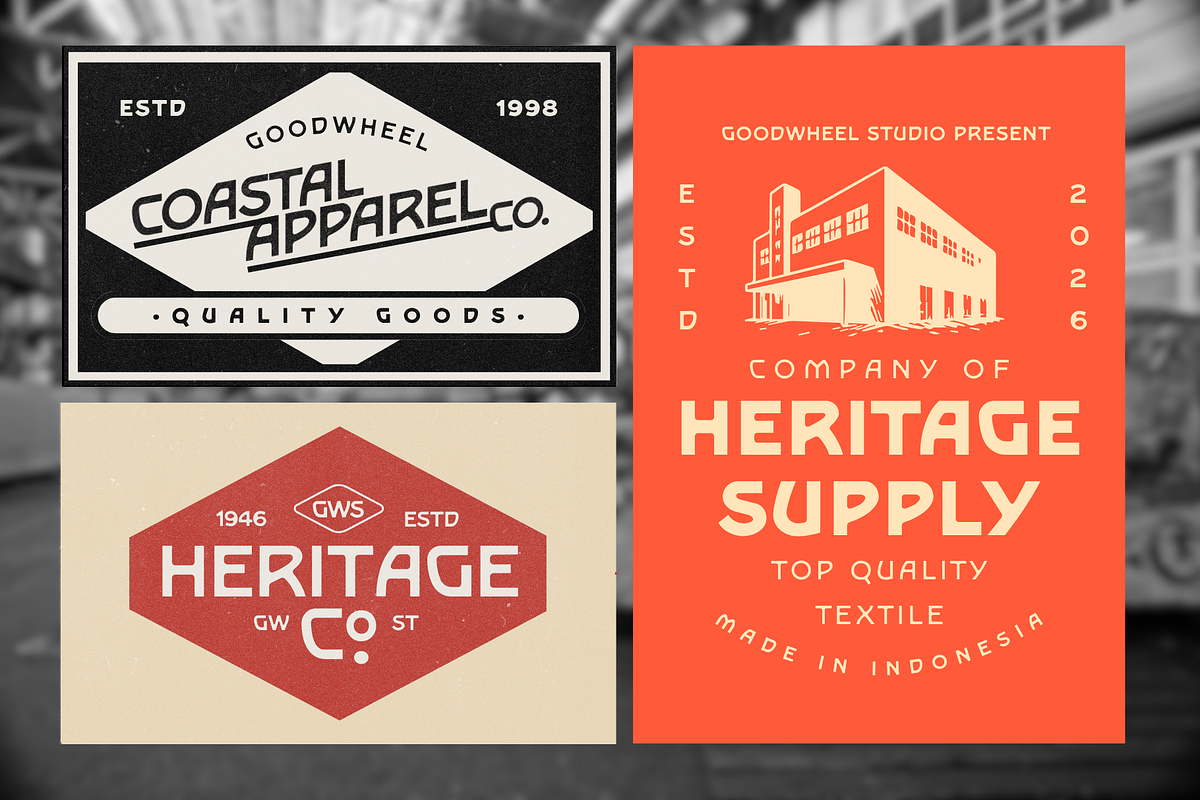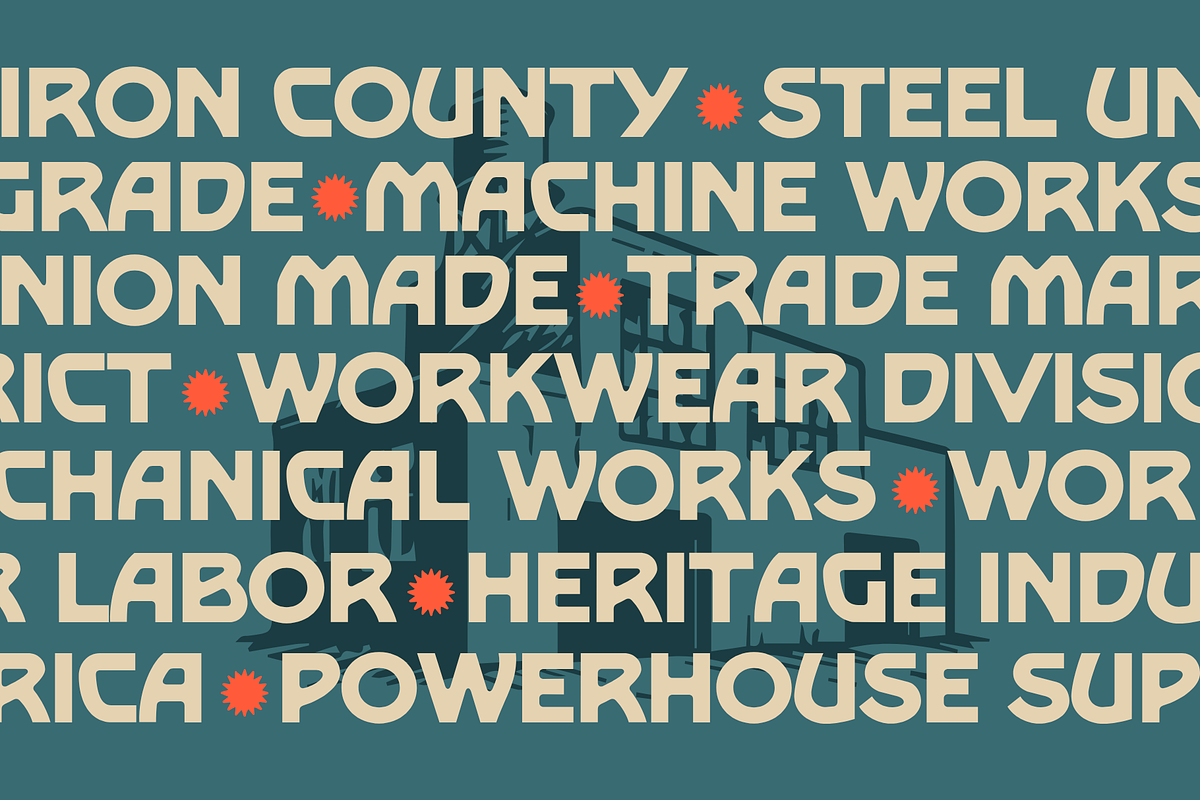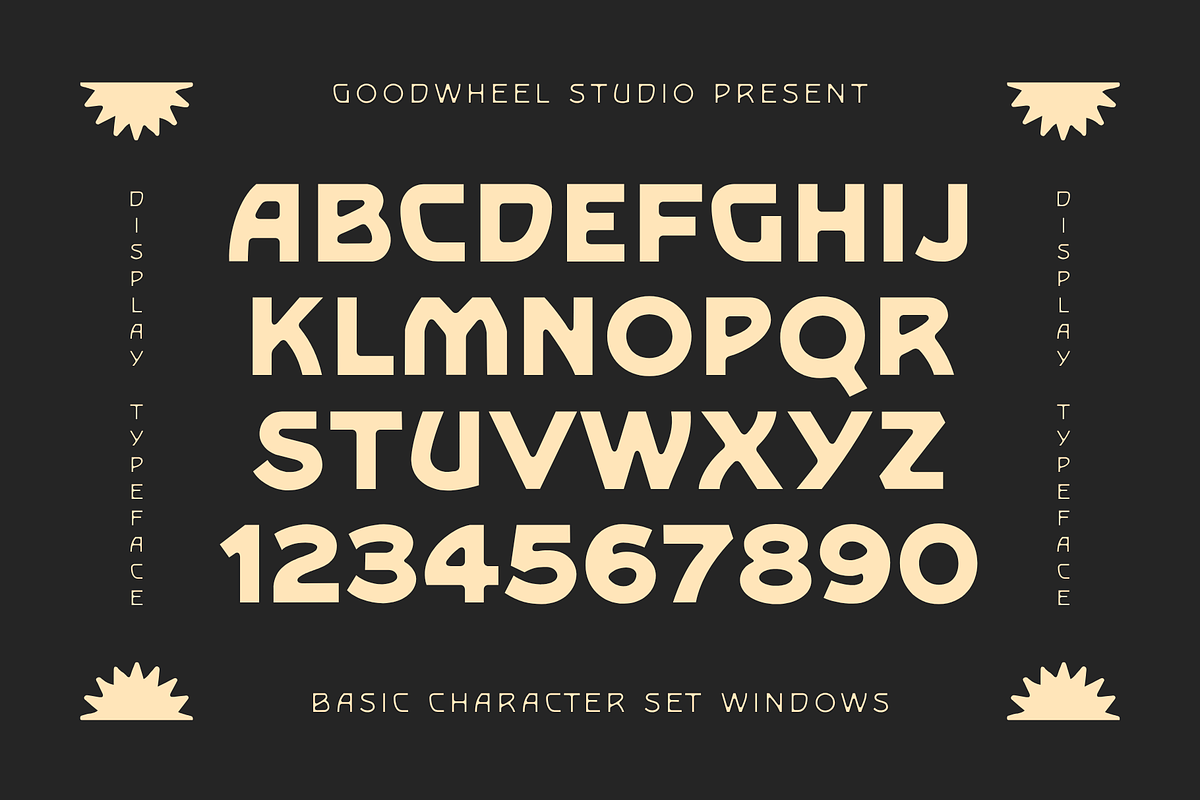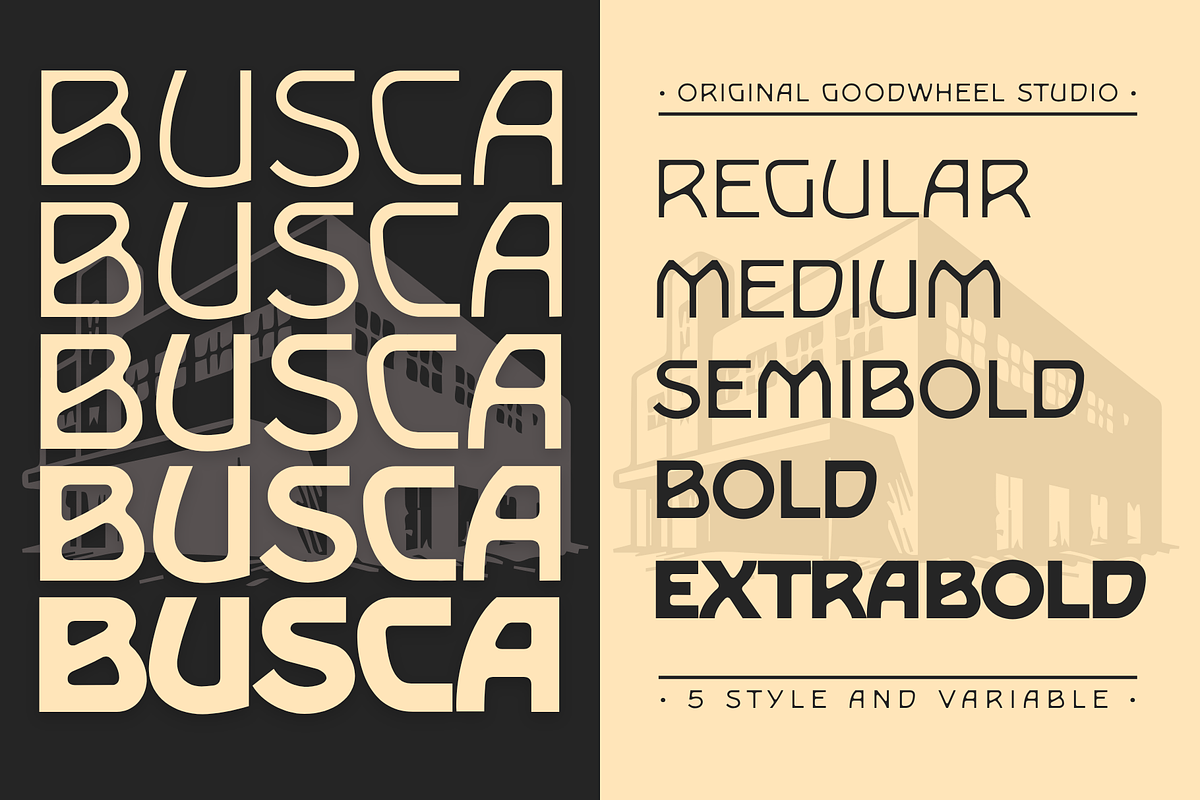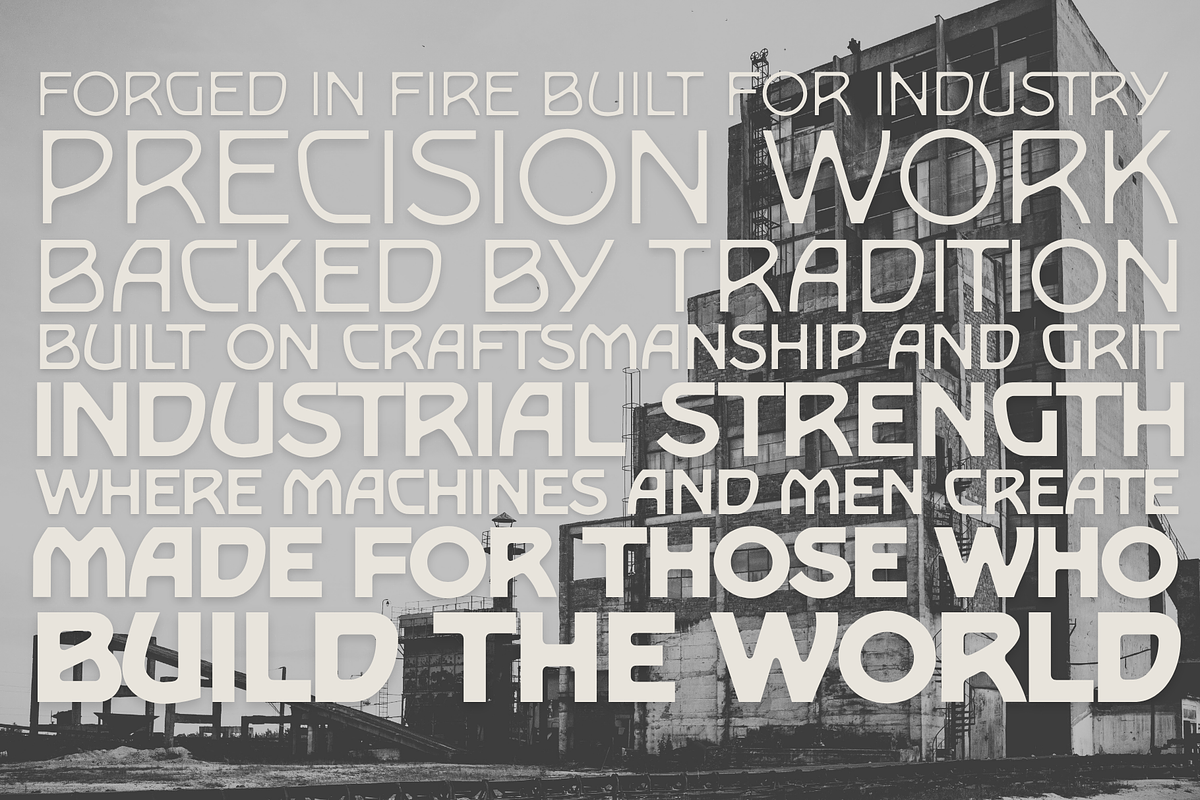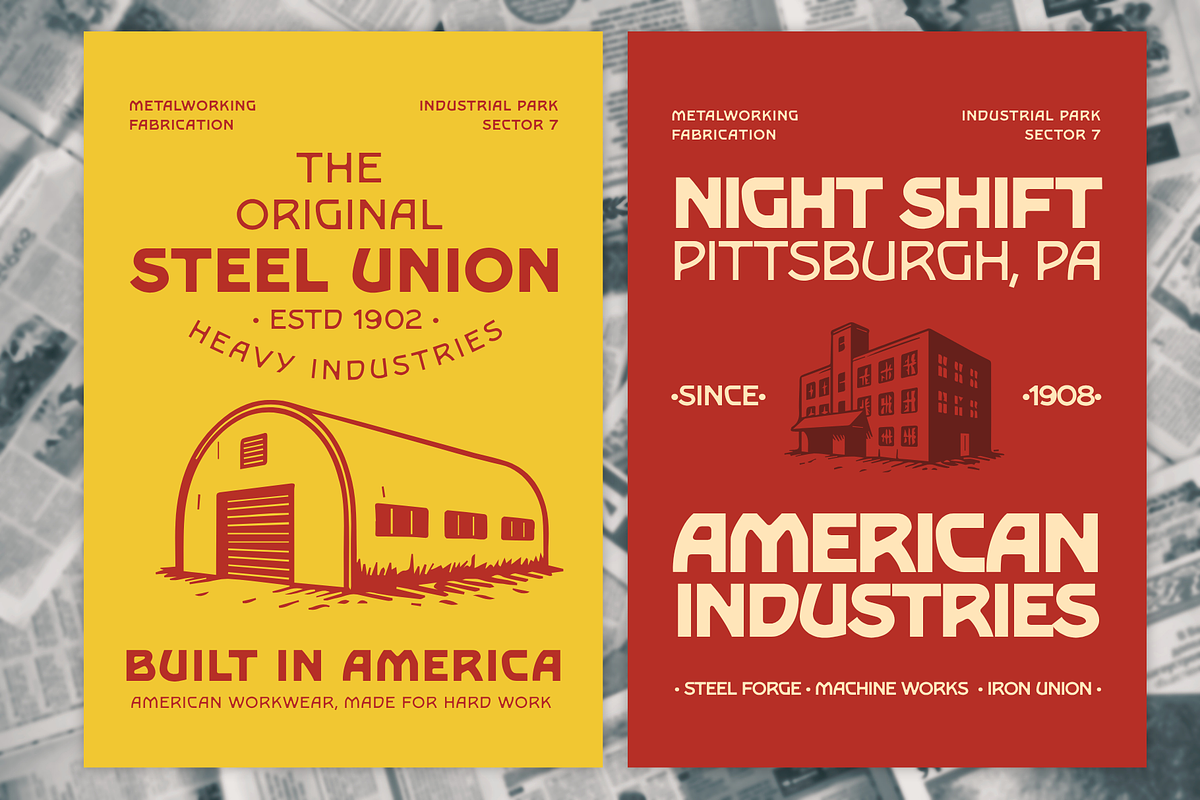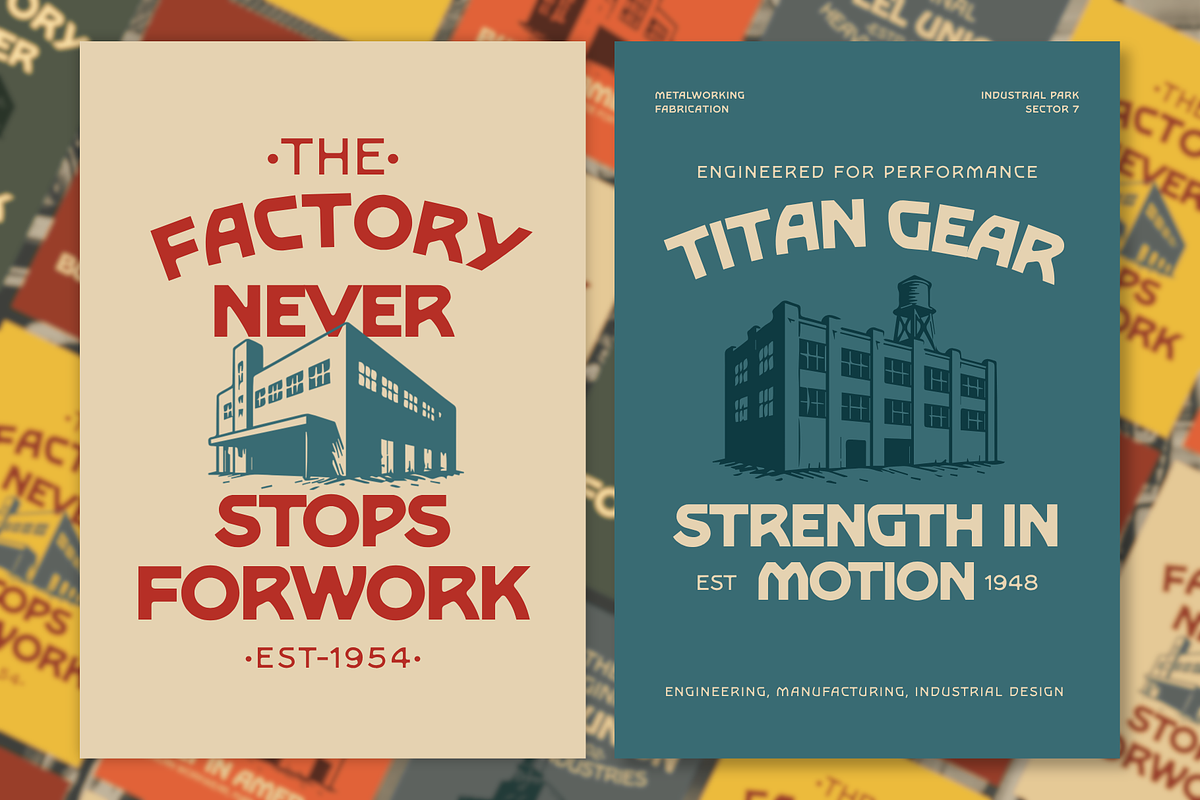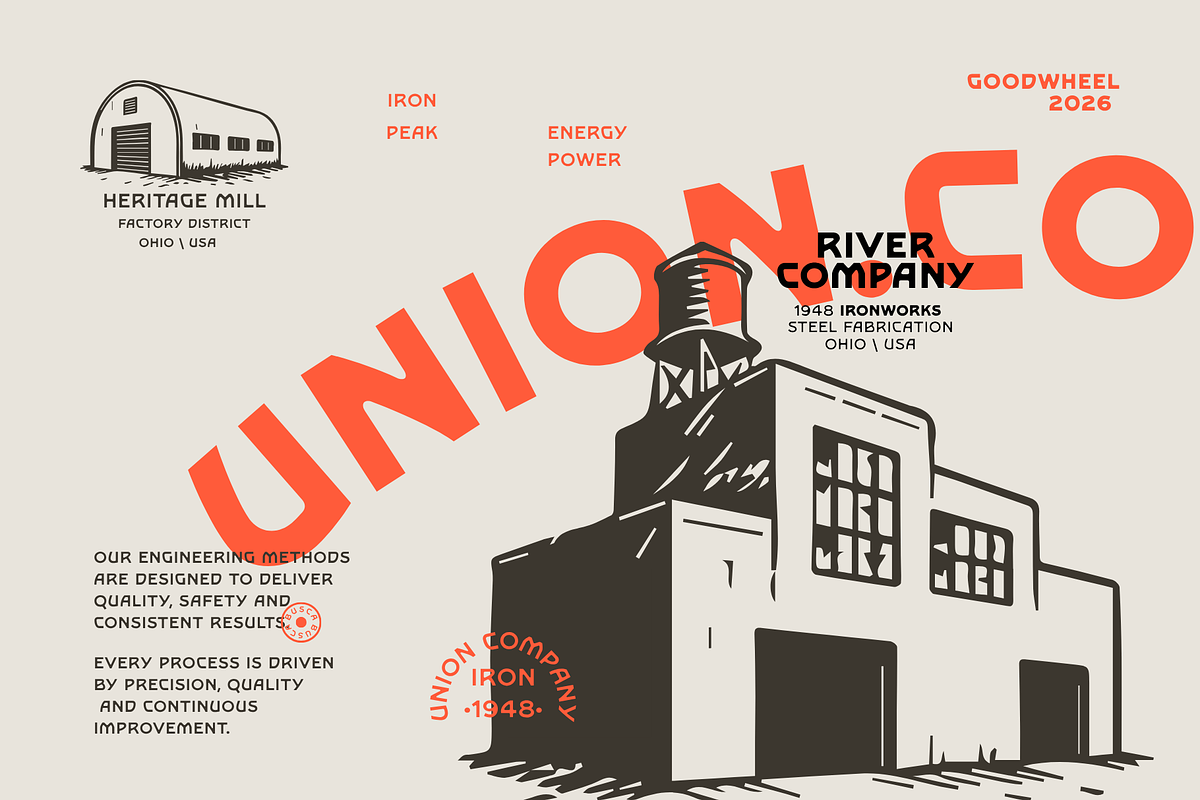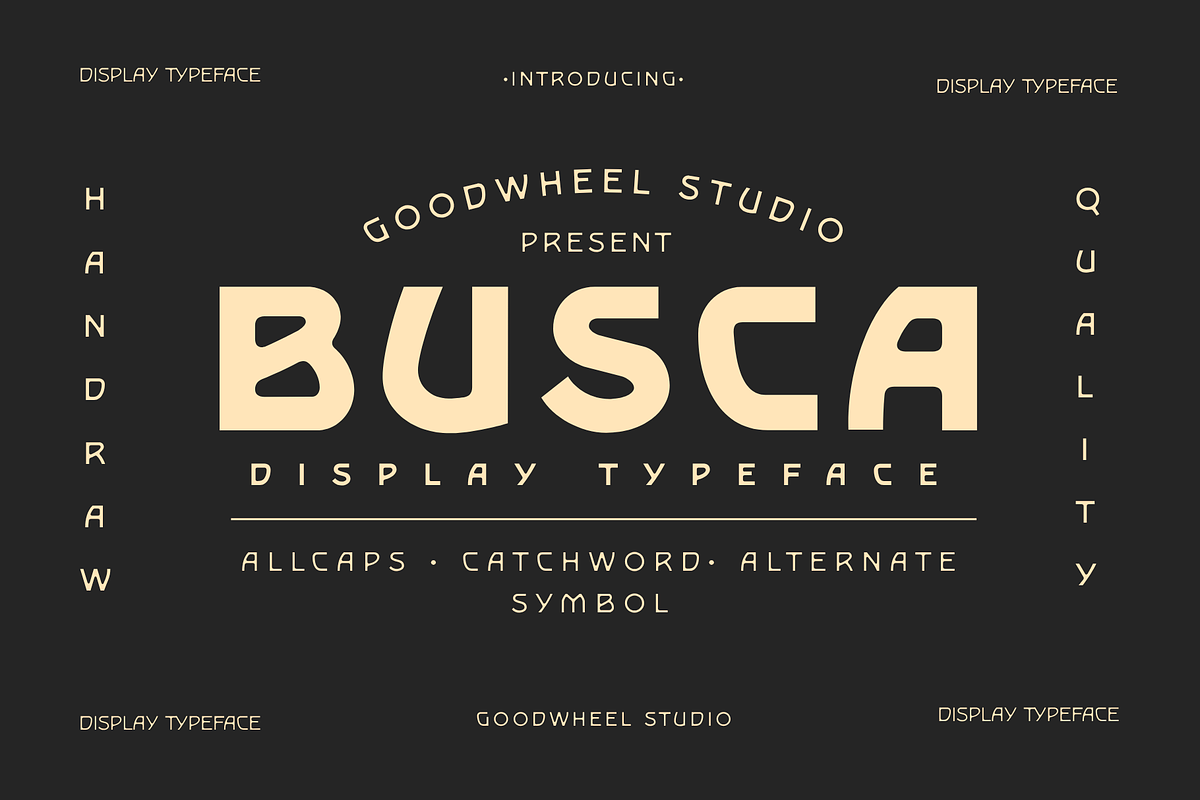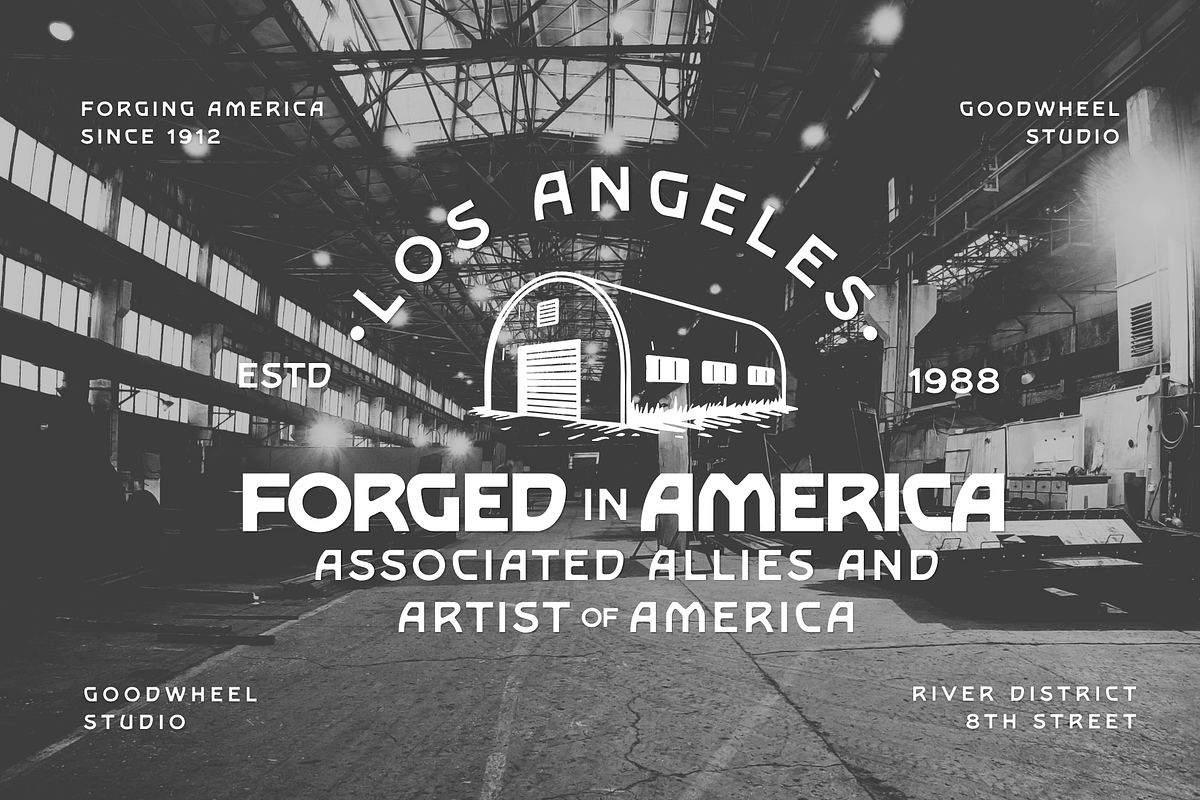
Busca | Handdrawn Typeface
Busca is a bold retro-futuristic display font that blends strong geometric shapes with modern Art Deco influences. Featuring smooth curves, unique cut details, and confident proportions, it creates a distinctive visual presence that instantly captures attention. Perfect for branding, logos, posters, packaging, editorial headlines, merchandise, and social media graphics, Busca delivers a striking balance between vintage charm and contemporary design. Each character is carefully crafted to provide maximum impact while maintaining readability. Whether used for creative campaigns or premium visual identities, Busca adds personality, sophistication, and a memorable character that helps your designs stand out from the crowd.